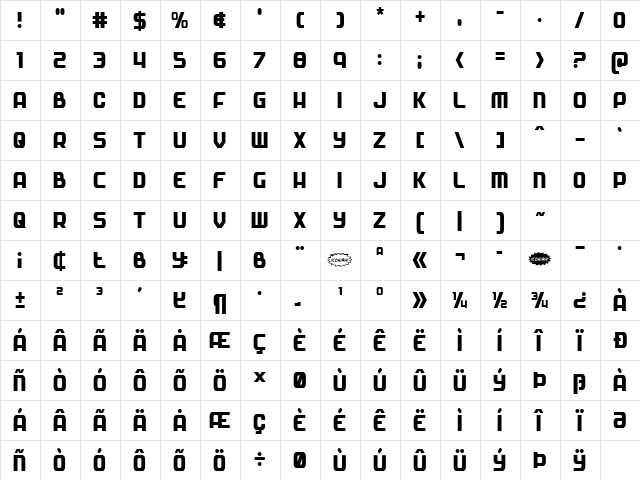
Soldier Condensed Condensed
Complete Soldier Condensed glyph index. Displaying only characters natively supported by Soldier Condensed font.
Design Context for Soldier Condensed
Soldier Condensed has the no-nonsense character of military stencilling and tactical signage, projecting authority and directness. Its narrow stance lets it pack a punch even in space-constrained designs.
A strong choice for security brands, outdoor gear, and high-stakes visual communication.
Pro Tip: Try Soldier Condensed in all-caps for the most authentic military signage feel. It pairs well with stark, minimal layouts and muted colour palettes.